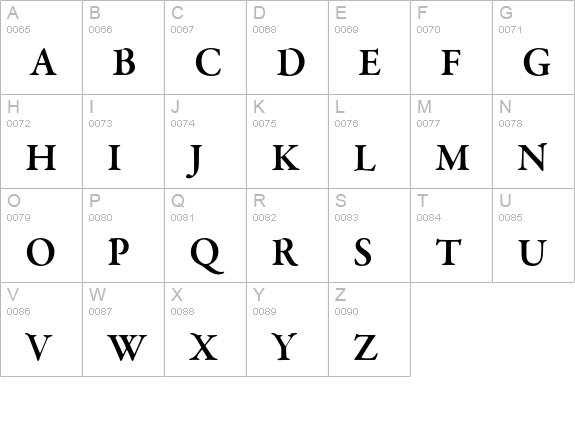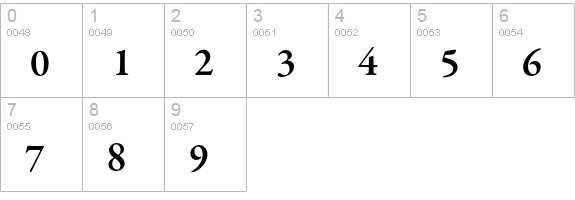
Garamond Premier Pro Semibold Font Details
Garamond Premier Pro Semibold is a sub-bold, structured variant in the Garamond typeface family \xE2\x80\x94 well suited to sub-headlines and emphasised passages.
Garamond Premier Pro Semibold font exudes sophistication and elegance with its timeless design. The semi-bold weight of this classic typeface strikes the perfect balance between boldness and finesse, making it ideal for conveying a sense of authority and professionalism in any design project. This versatile font features delicate serifs and graceful proportions that enhance readability and add a touch of refinement to any text. Its subtle curves and sharp edges create a harmonious visual rhythm that captivates the eye and draws the reader in. And the best part? Garamond Premier Pro Semibold font is available for free download at FontsMarket.com. Now you can elevate your designs with this exquisite typeface without breaking the bank. Whether you're crafting elegant invitations, designing sophisticated branding materials, or creating polished editorial layouts, Garamond Premier Pro Semibold font is sure to make a lasting impression.